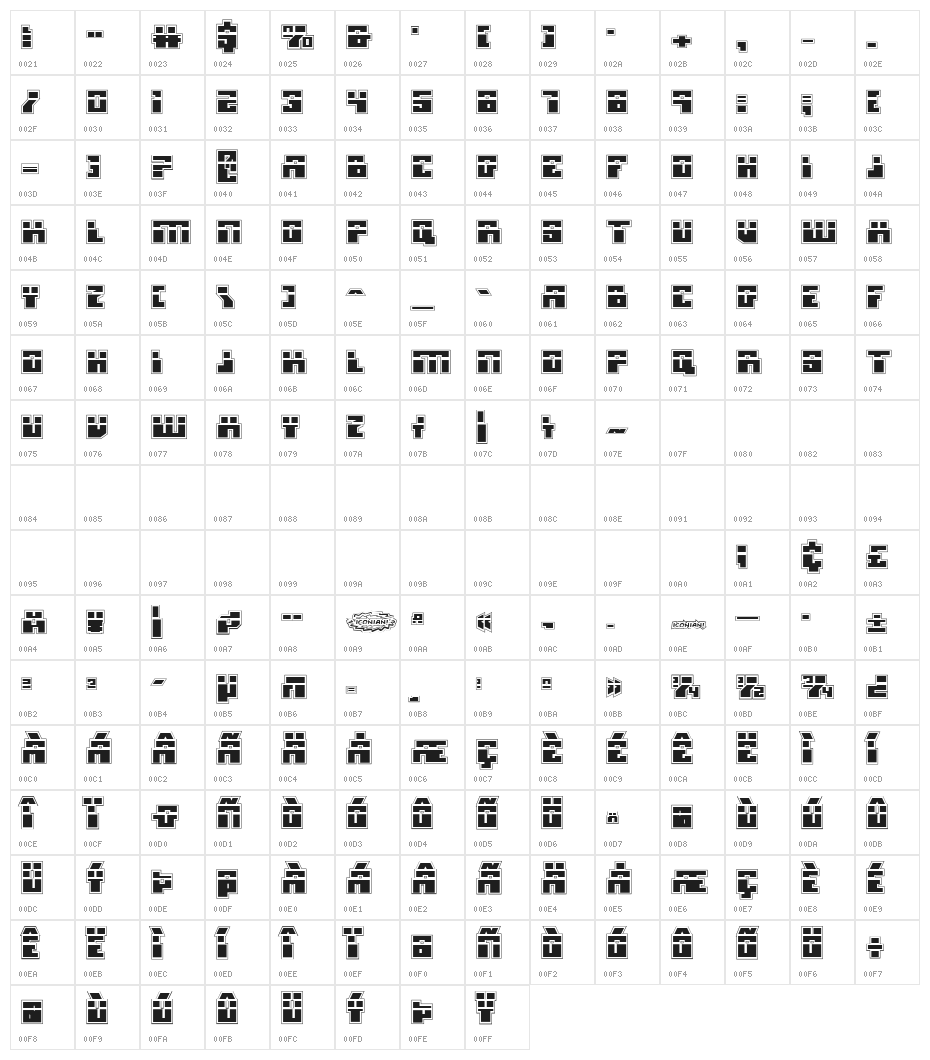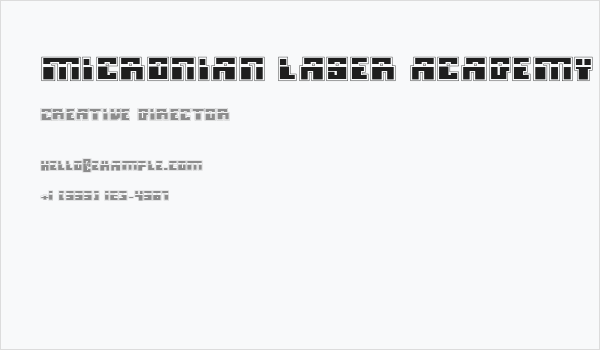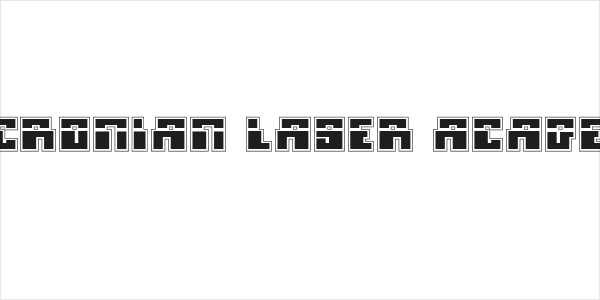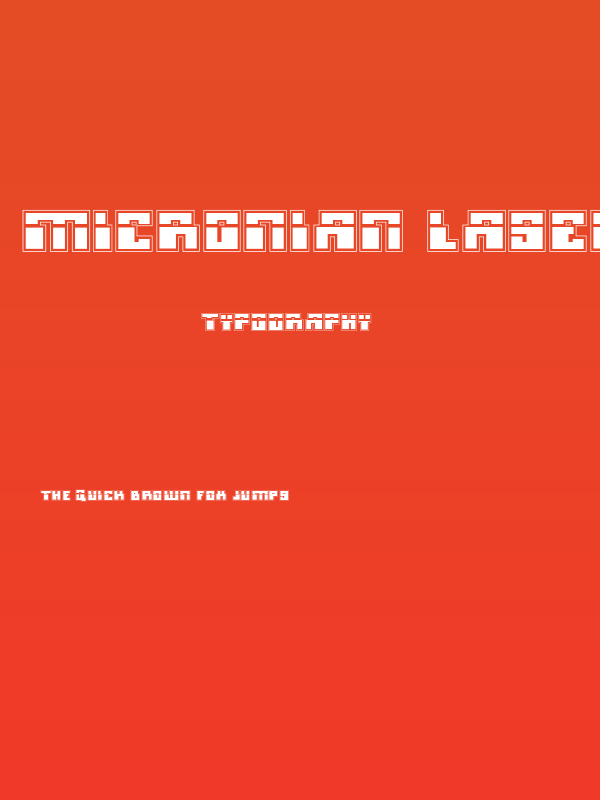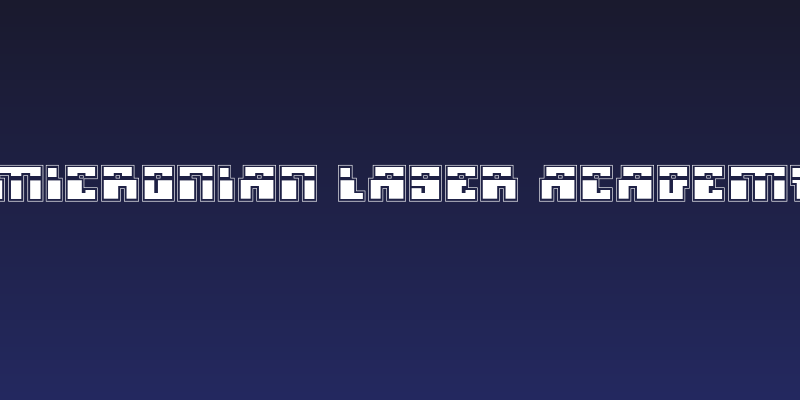
Micronian Laser Academy Font
Micronian Laser Academy Description
This font features a bold, futuristic design with a strong geometric structure. Each character is crafted with sharp angles and a blocky appearance, giving it a digital, tech-inspired look. The uppercase and lowercase letters maintain a consistent style, with a uniform height and width that enhances readability. The numbers and special characters are designed to match the overall aesthetic, making them ideal for digital displays or tech-themed projects. The font's distinct style is reminiscent of retro video games or sci-fi interfaces, offering a nostalgic yet modern feel.
Overall StyleFuturistic
Proposed ProjectsIdeal for video game titles, tech branding, digital interfaces, and sci-fi themed posters.